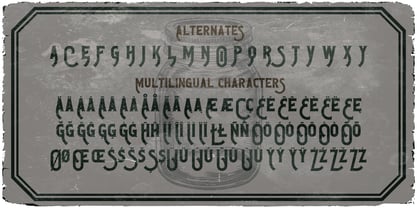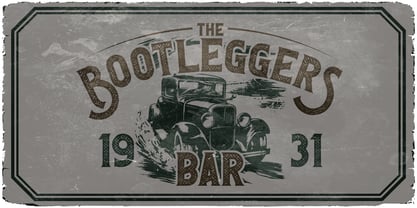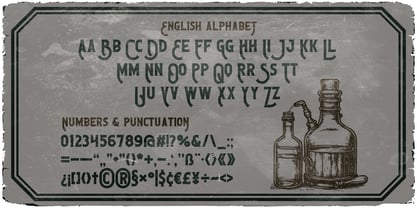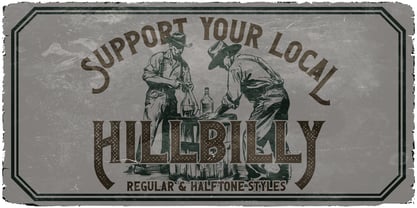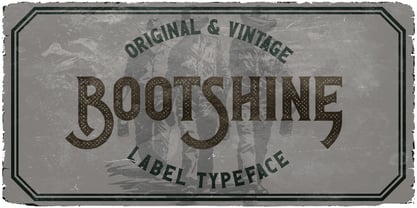
Bootshine
by Vozzy
The Bootshine Font Family was designed by Oleg Voznyy and published by Vozzy. Bootshine contains 2 styles and family package options. More about this family
Introducing the original display font "Bootshine" – a striking and uniquely handcrafted typeface that brings character to any project. Designed with a strong visual identity, it features extended characters, punctuation, and full multilingual support. Every letter was drawn by hand to create a distinctive, eye-catching look that sets your work apart. Perfect for posters, flyers, branding, apparel, and more, this font adds a creative edge wherever it’s used. "Bootshine" is all about making your message stand out with style.
Designers: Oleg Voznyy
Foundry: Vozzy